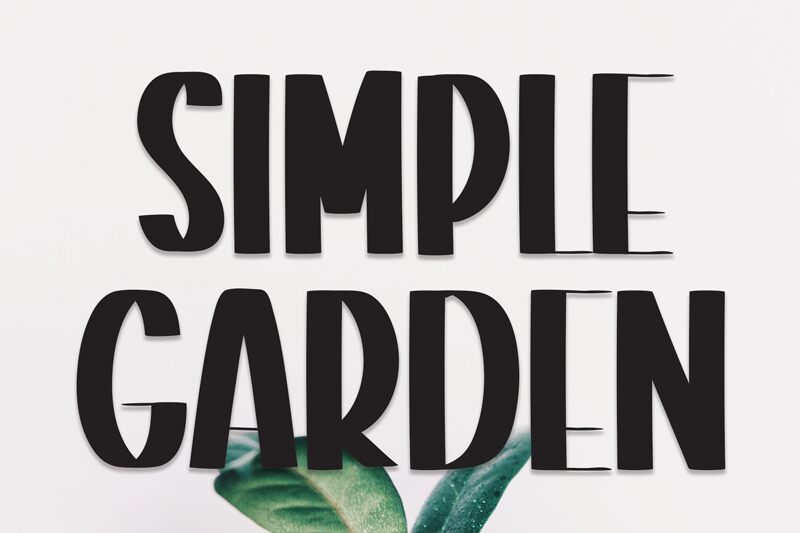
Simple Garden
Simple Garden, designed by Scratchones, is a captivating display font that adds a touch of elegance and sophistication to any design project.
With its semi-bold weight and condensed width, this font is perfect for creating eye-catching headlines and titles on websites, posters, or packaging. Its versatility makes it suitable for a wide range of projects, such as fashion magazines, luxury branding, modern websites, or even wedding invitations.
Simple Garden will effortlessly elevate your designs with its unique style and refined aesthetic.
With its semi-bold weight and condensed width, this font is perfect for creating eye-catching headlines and titles on websites, posters, or packaging. Its versatility makes it suitable for a wide range of projects, such as fashion magazines, luxury branding, modern websites, or even wedding invitations.
Simple Garden will effortlessly elevate your designs with its unique style and refined aesthetic.